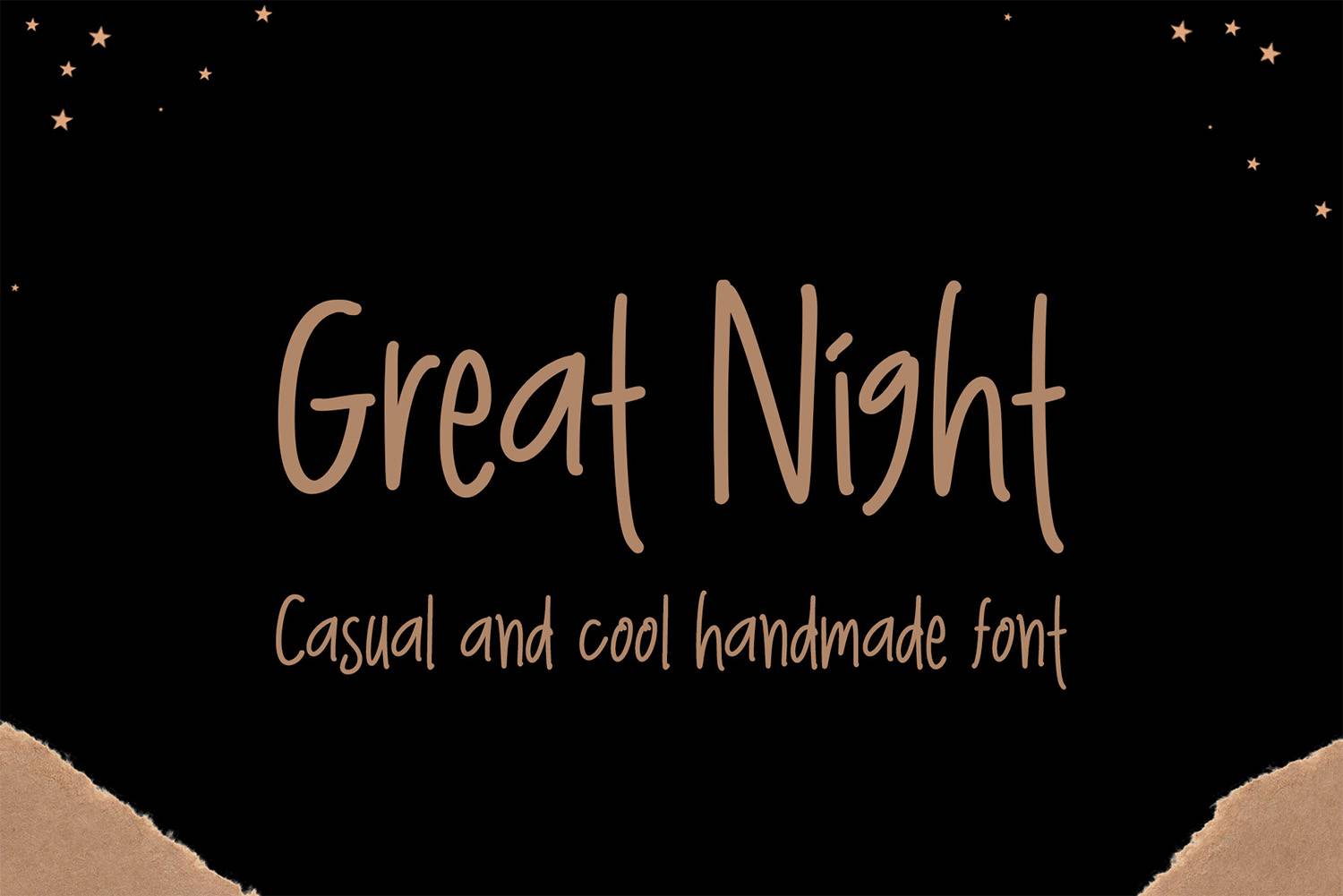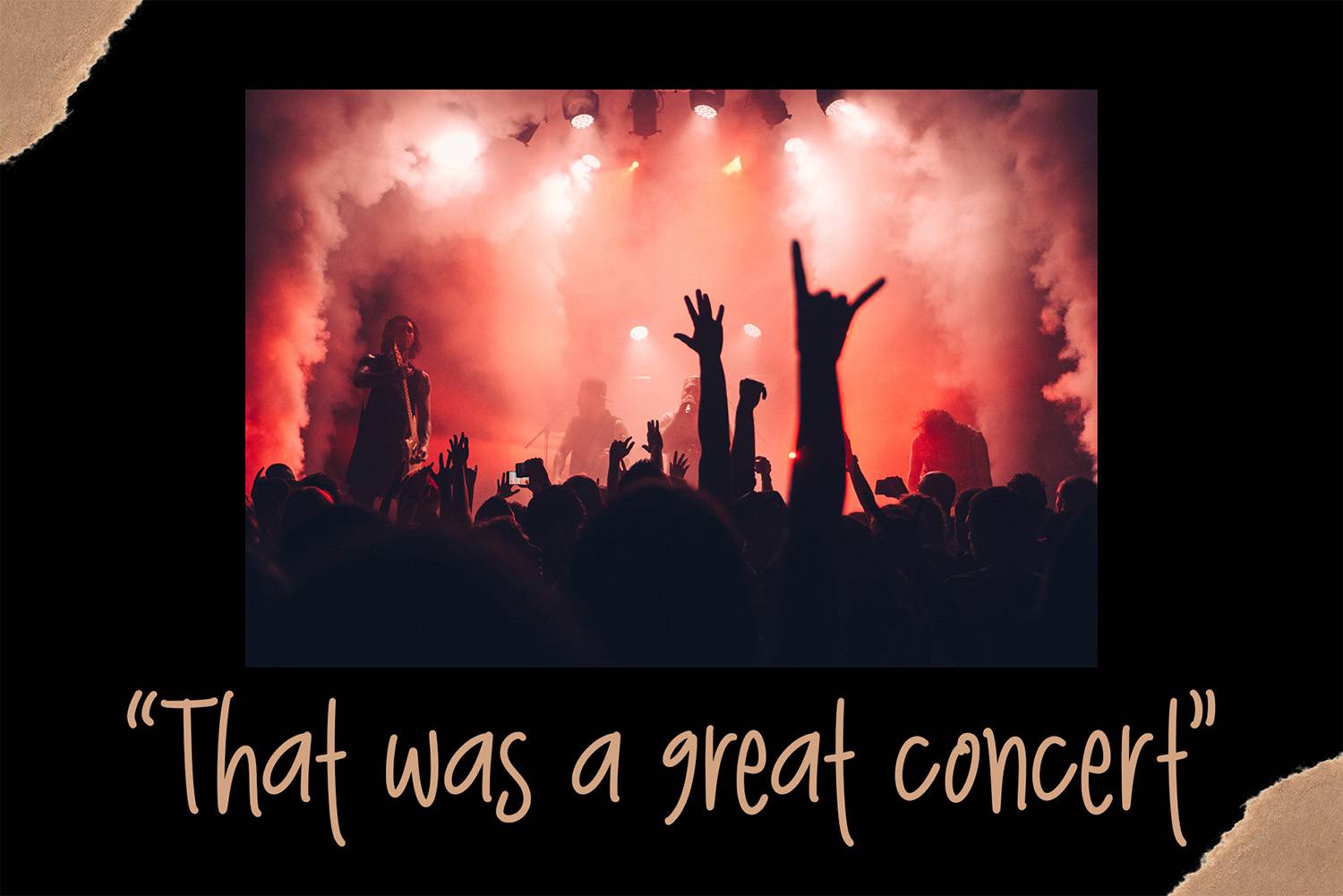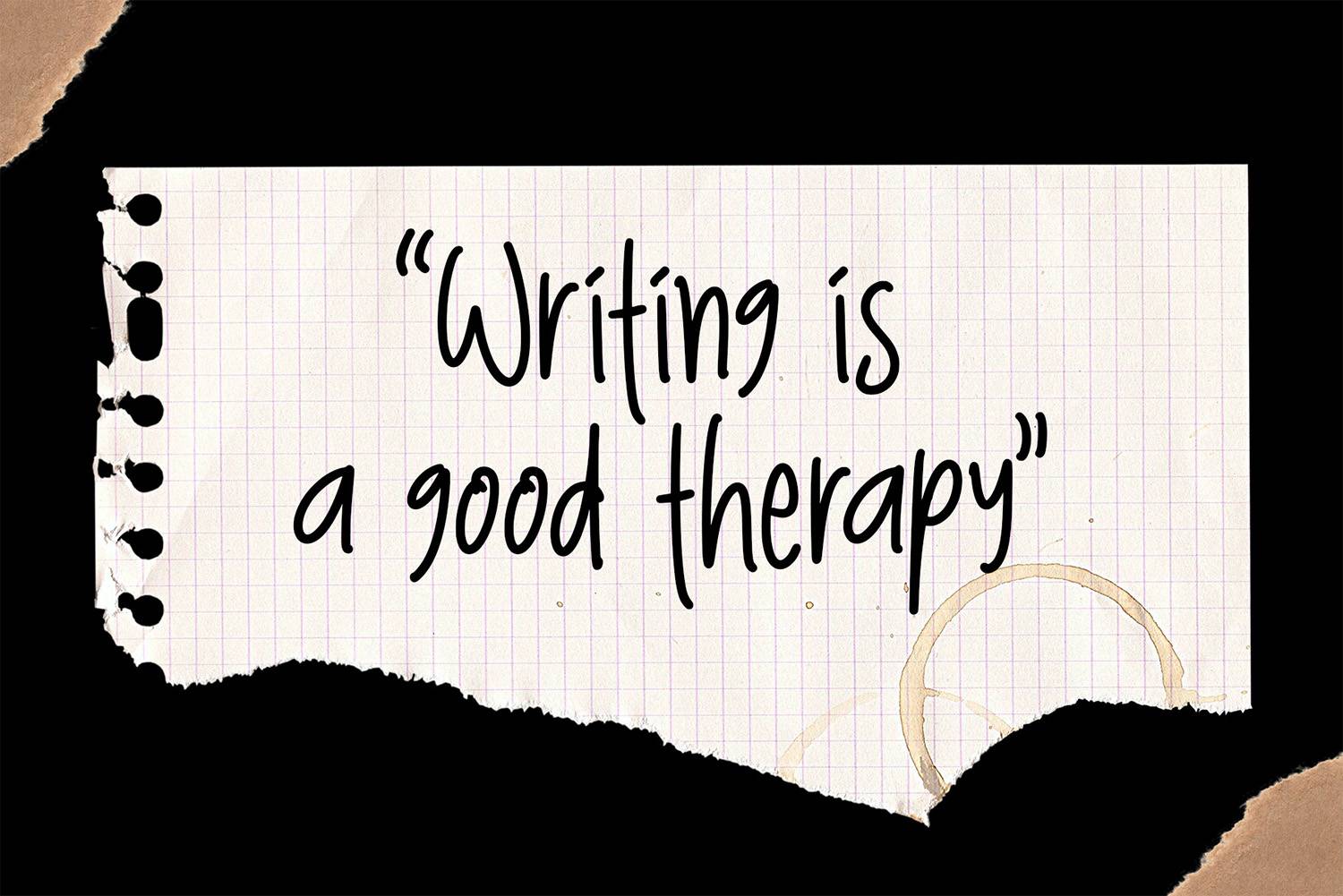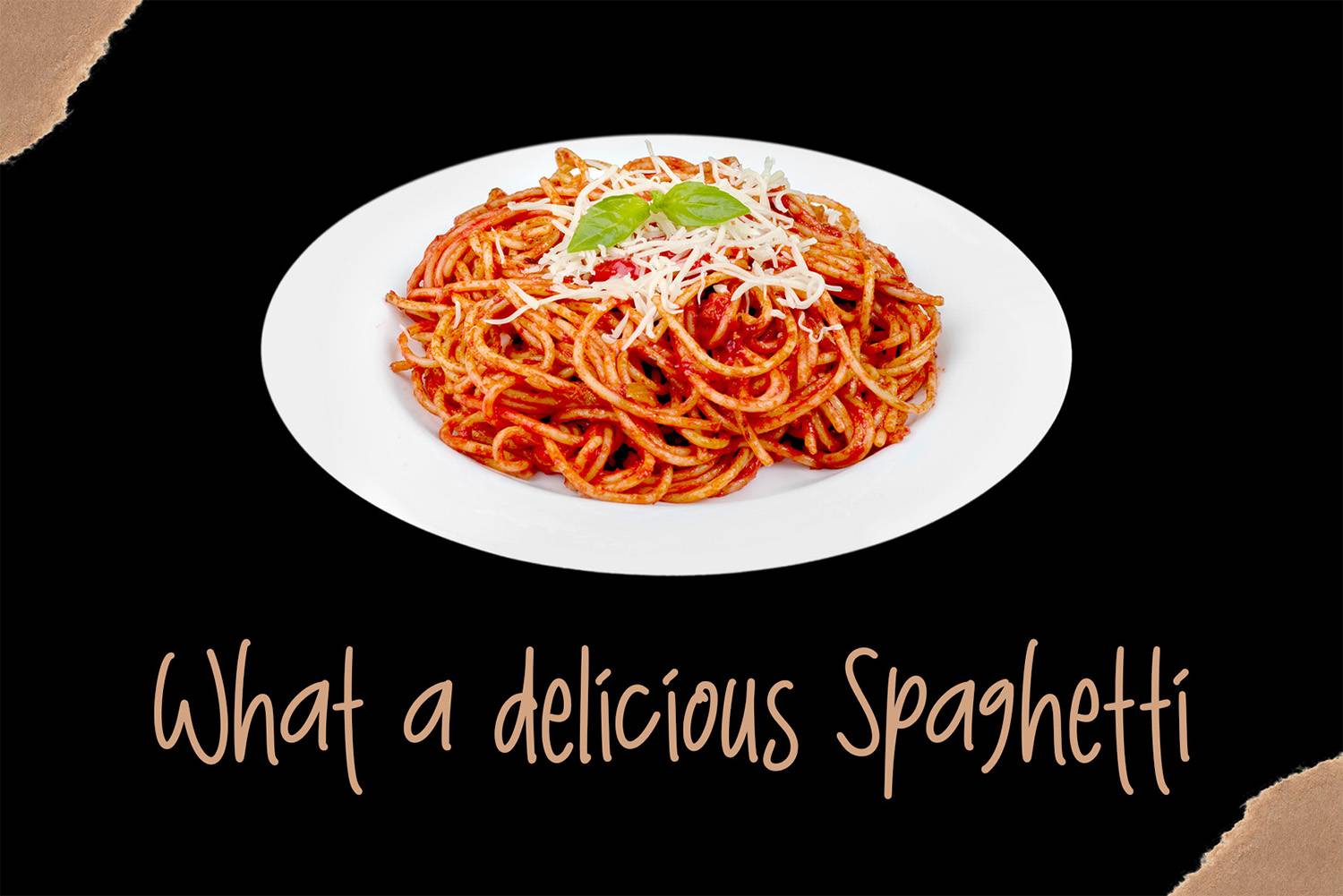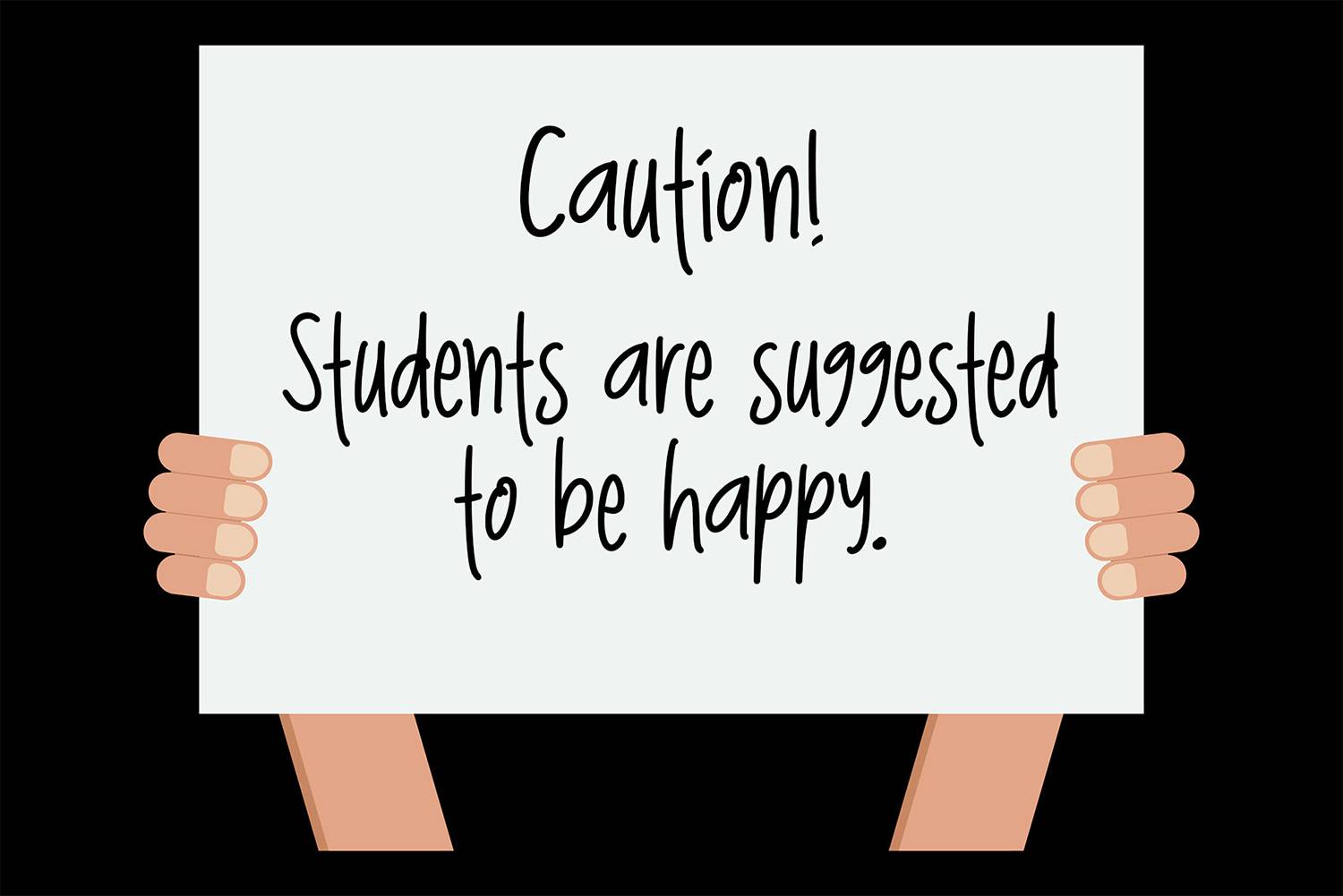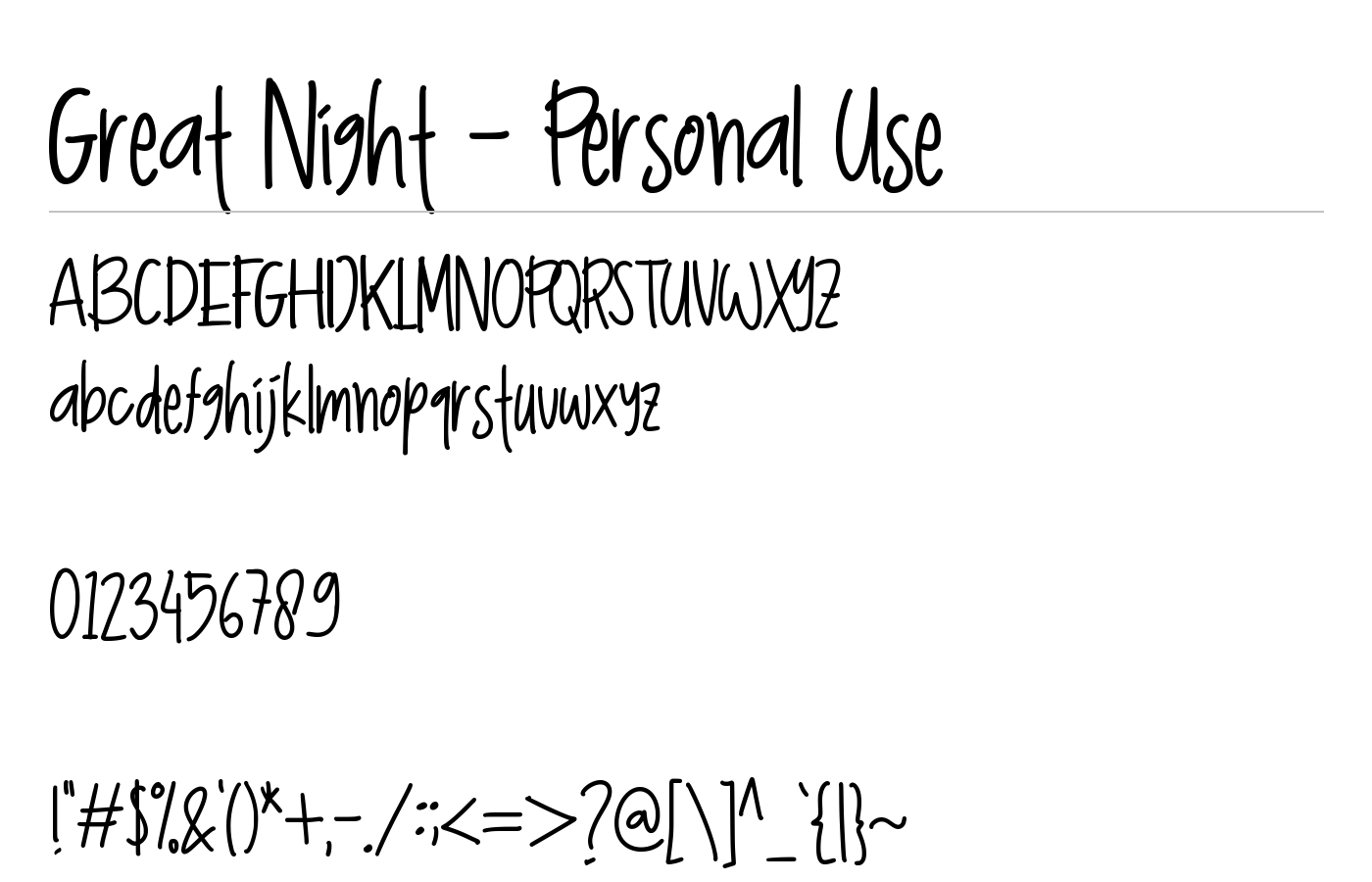
Great Night is a playful, hand-drawn sans serif font with a light weight and tall, narrow letterforms that give it a casual, friendly vibe. Its uneven strokes and quirky character shapes make it perfect for informal designs, such as personal projects, creative branding, or fun headlines. This font works well where a relaxed, approachable, and youthful tone is desired.
Great Night Font
About Great Night Font
| Font family | Great Night Font |
| Designer | Endri Sulistyawan |